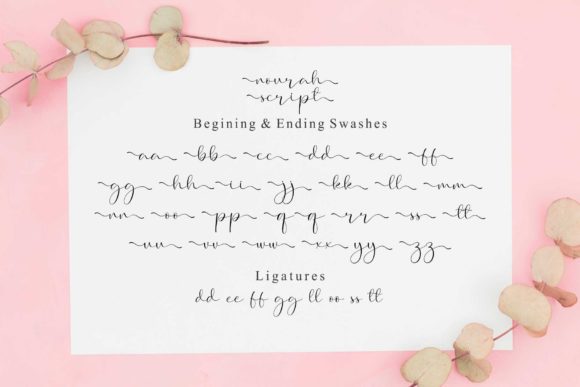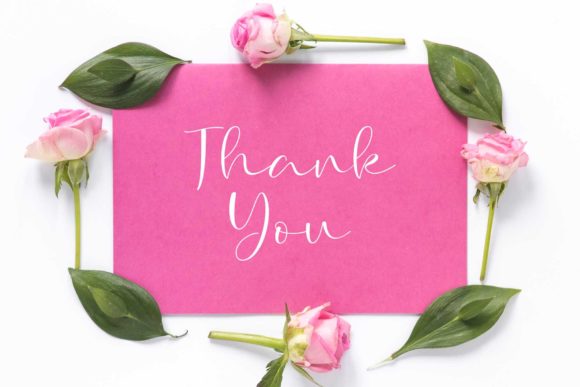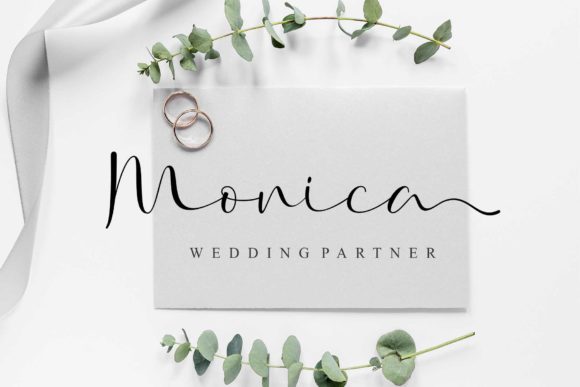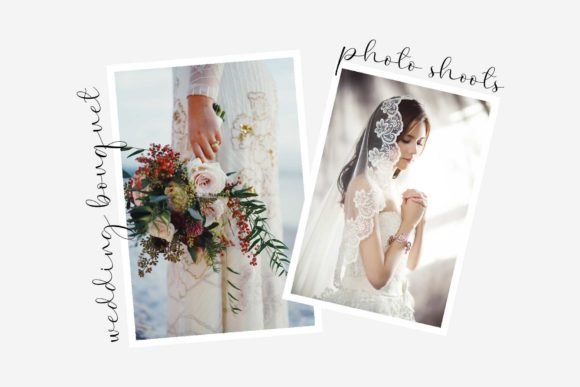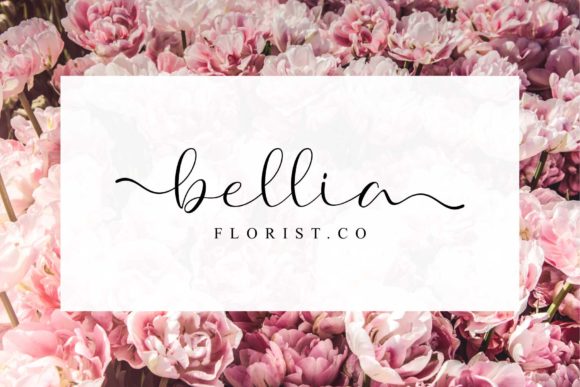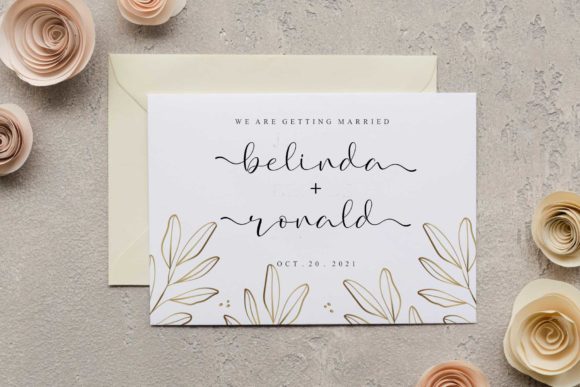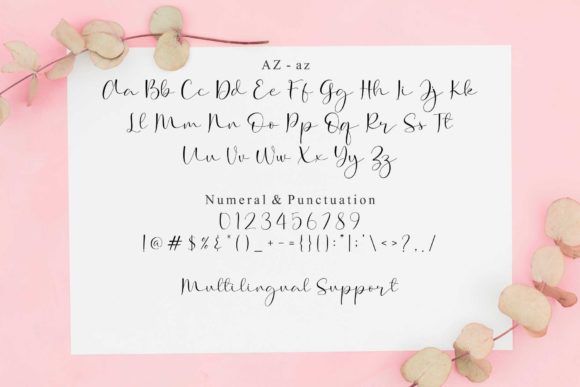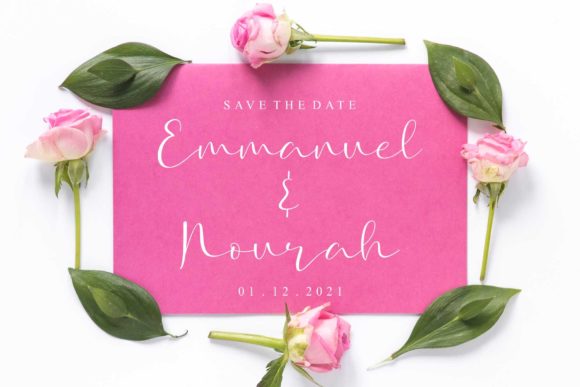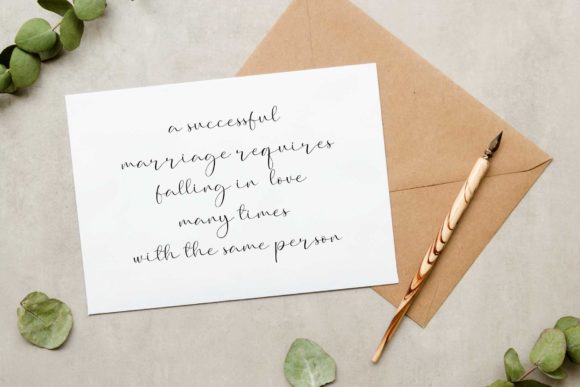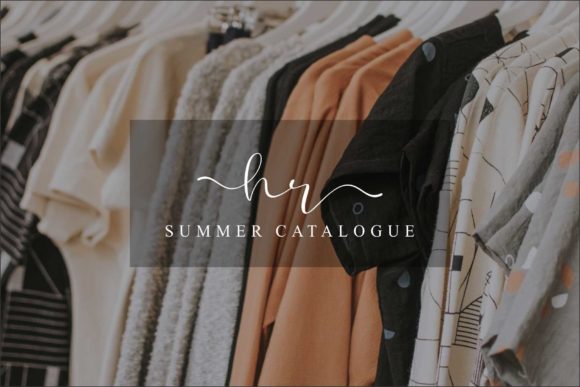
Nourah Script Font
About Nourah Script Font
Nourah Script is a beautiful handwritten script font, which has the perfect and unique shape in each character. It is defined by smooth curves and is ideal for fashion branding or editorial designs. Add it confidently to your projects, and you won’t be disappointed.